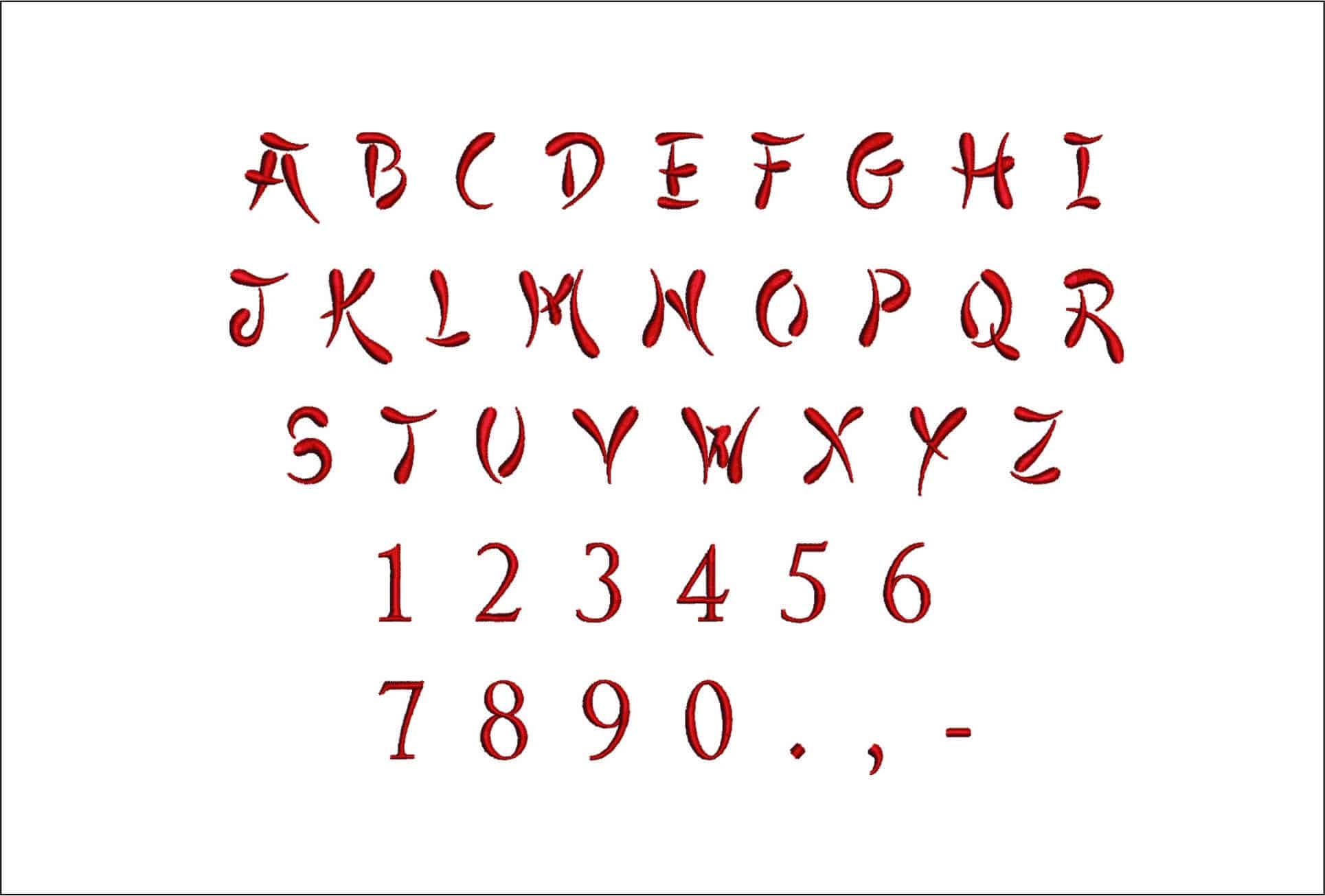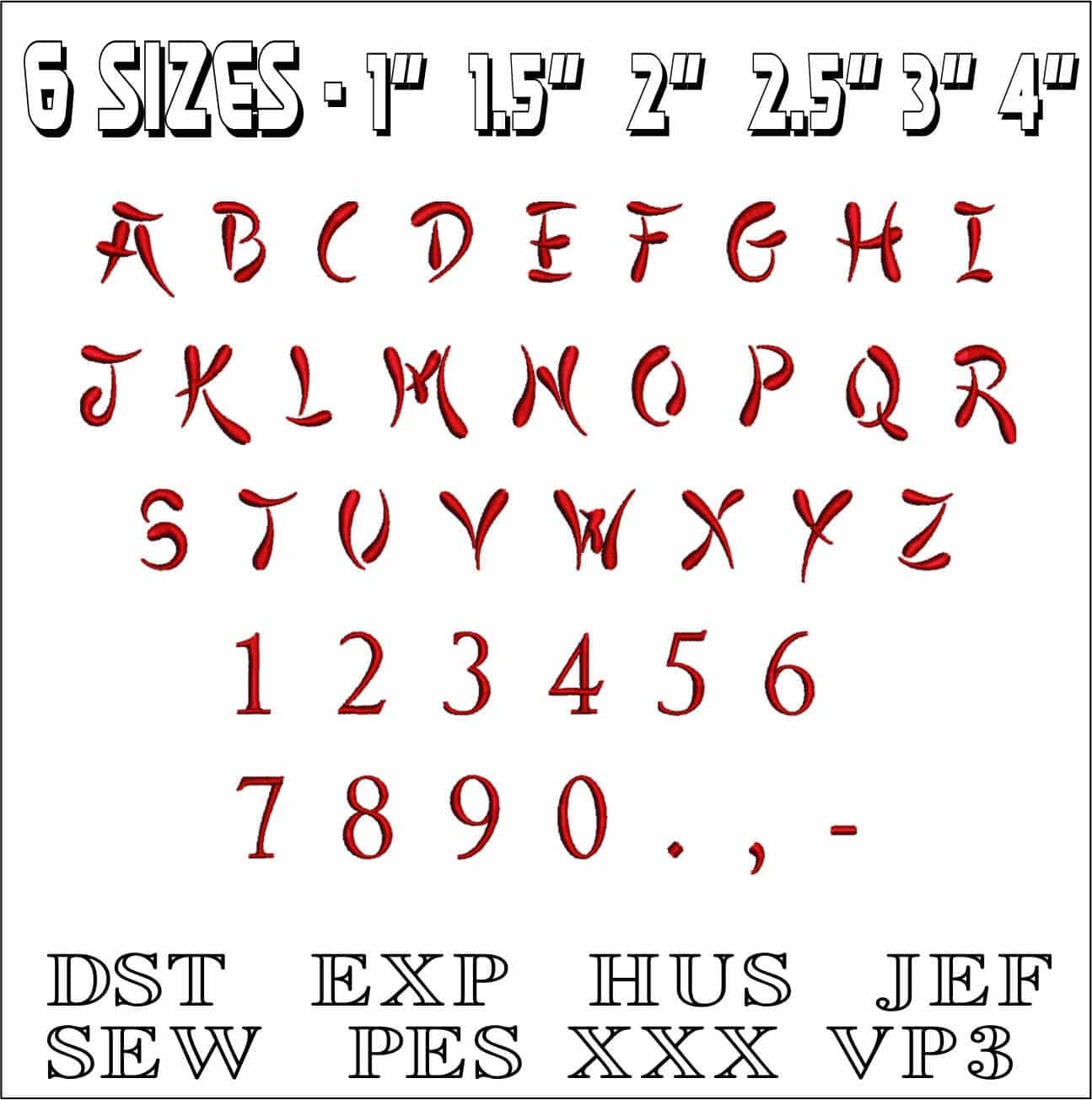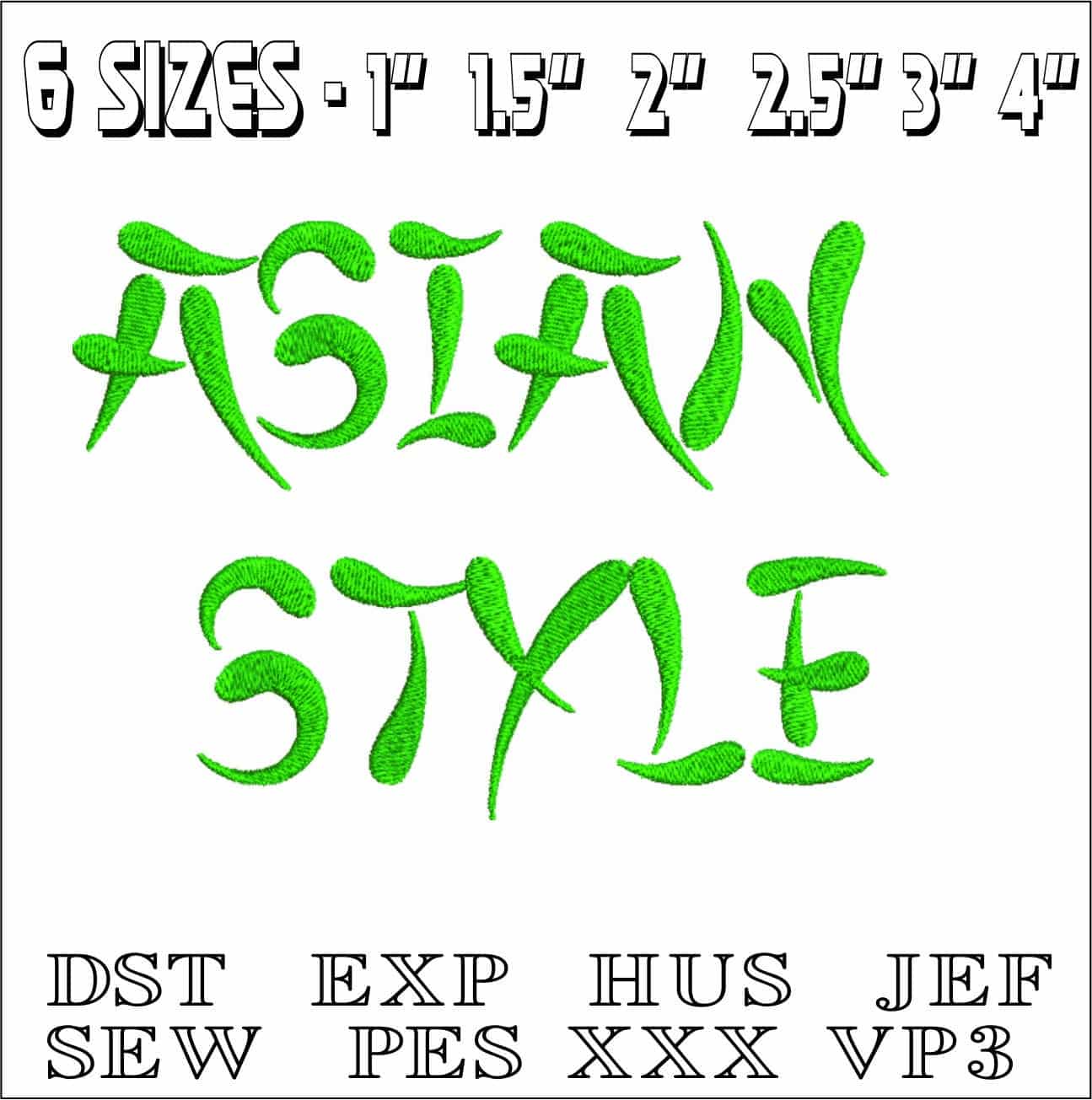
Asian Style Font Embroidery Font Set - 1" 1.5" 2" 2.5" 3" and 4" - Machine Embroidery Alphabet Font - instant download
An Asian-inspired brushstroke font set that gives names, initials and numbers a clean calligraphic look on garments and gifts.
Add brushstroke character to names, initials and numbers with this Asian-style embroidery font set. The letterforms have a painted-calligraphy feel, with curved strokes and pointed ends that make even simple wording look more considered. It suits makers who want monograms and custom text to feel expressive rather than blocky, whether you are stitching a single initial or a full name.
This style works especially well on jacket backs, sweatshirt fronts, tote bags, robe collars and cotton gift items where the flowing shapes have room to read clearly. The strokes give text a decorative presence without needing extra motifs, so it stands up well on its own for personalisation. Use it when you want lettering that feels elegant, graphic and slightly bold, with a distinct East Asian brushwriting influence.